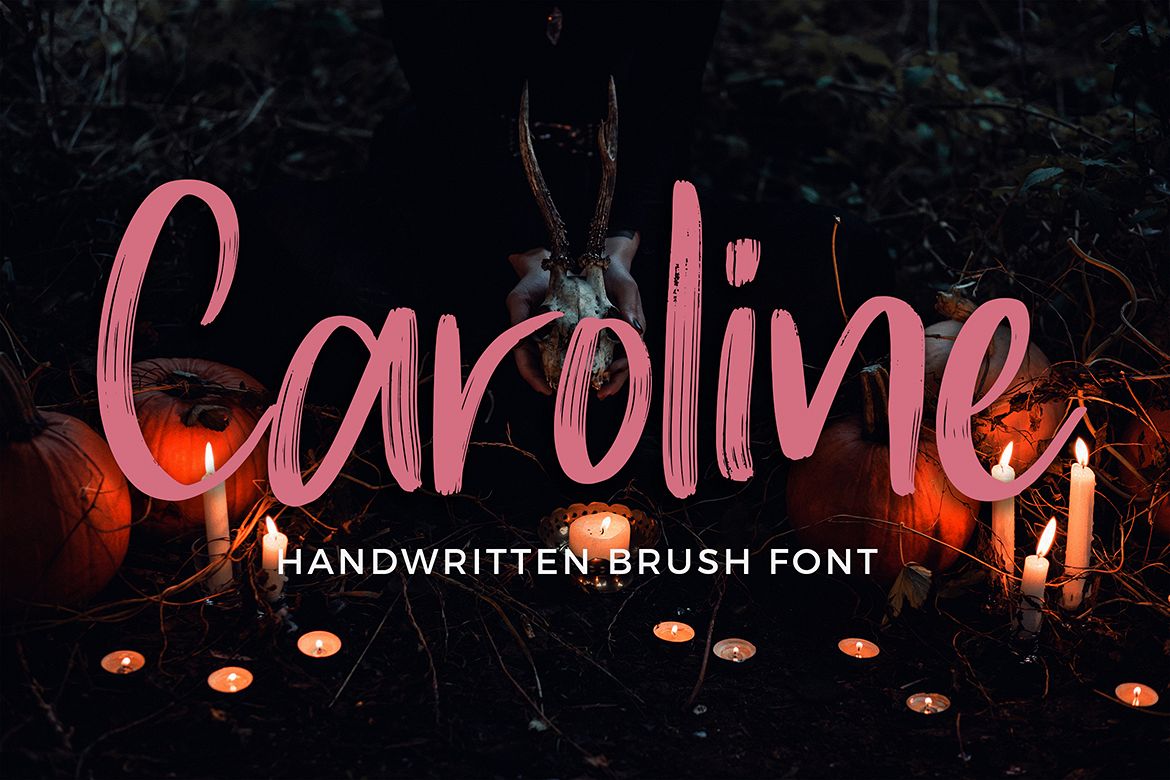
Caroline Handwritten Brush Font
Caroline
Caroline Handwritten Brush Font
is handwritten font with brush style. This font perfect for branding
projects, logo, tshirt designs, social media posts, advertisements,
product packaging, product designs, label, watermark, invitation,
stationery and any projects